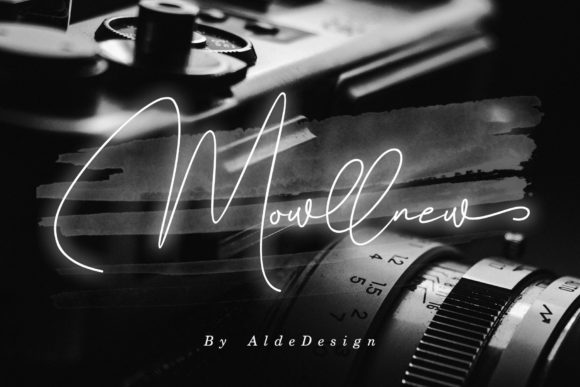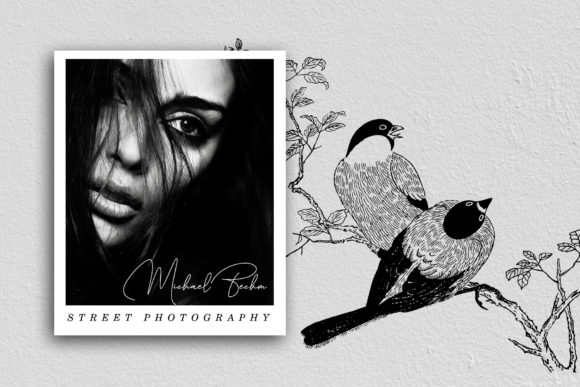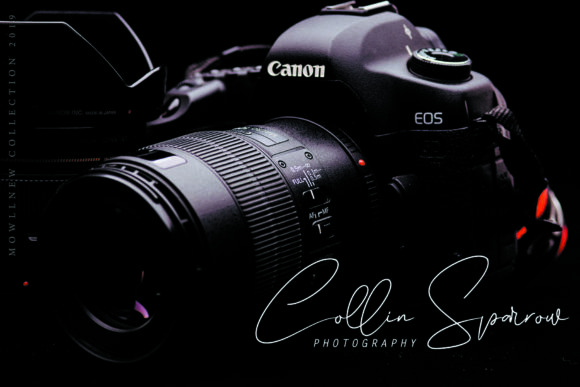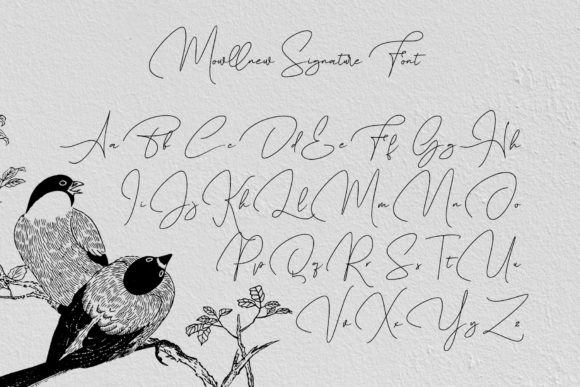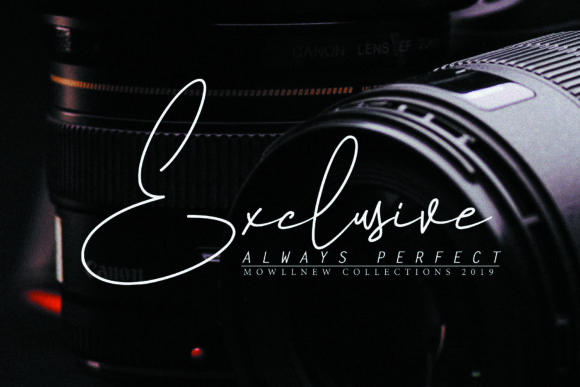
Mowllnew Font
About Mowllnew Font
Mowllnew is a classy and fresh script font with graceful swashes and bold curves. Use it to add an authentic touch to any design project!